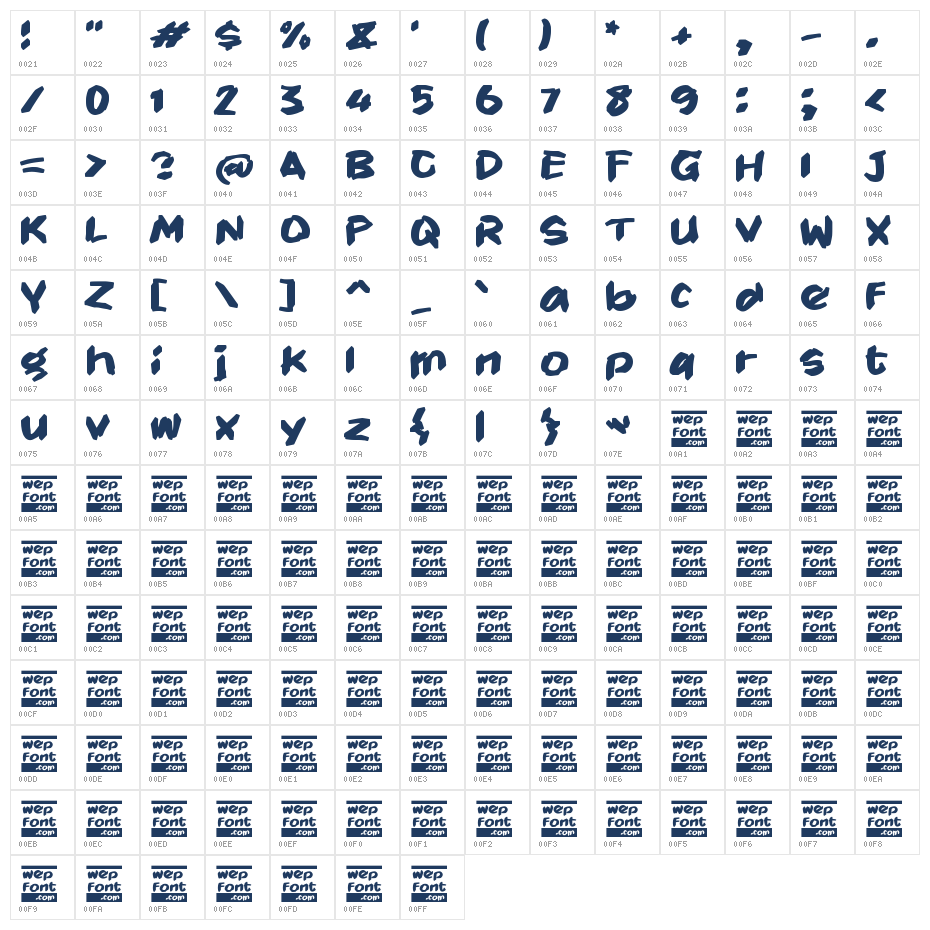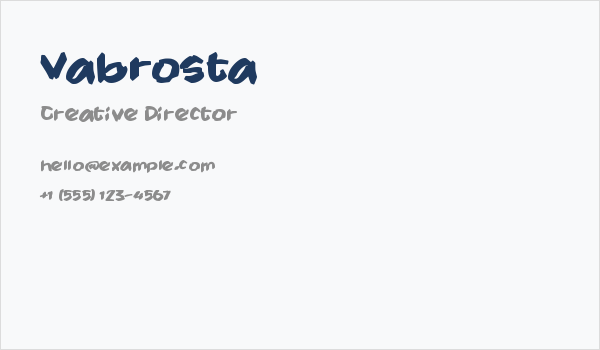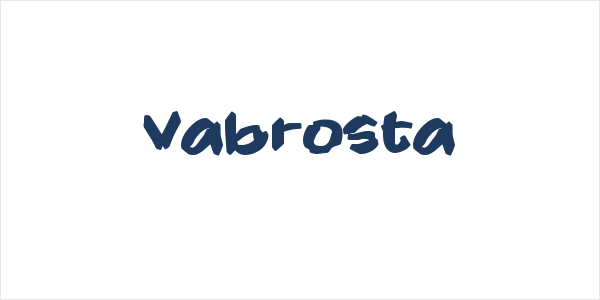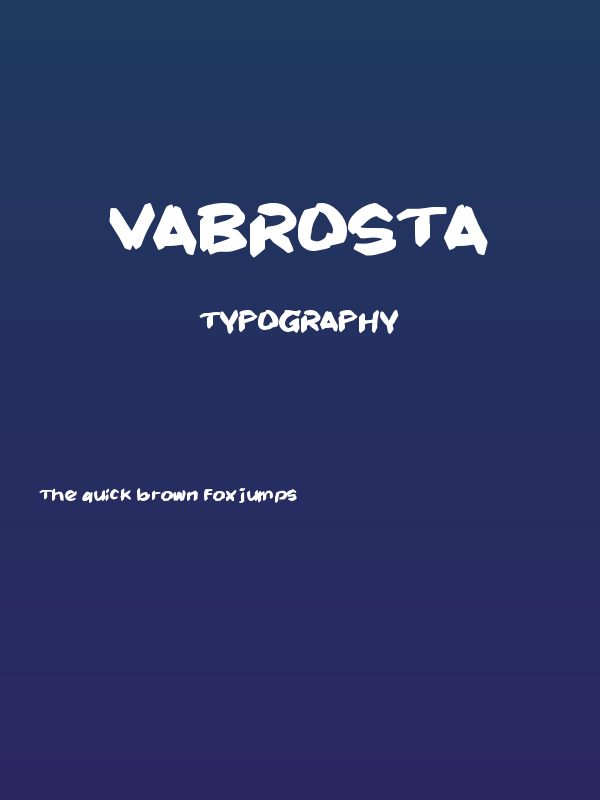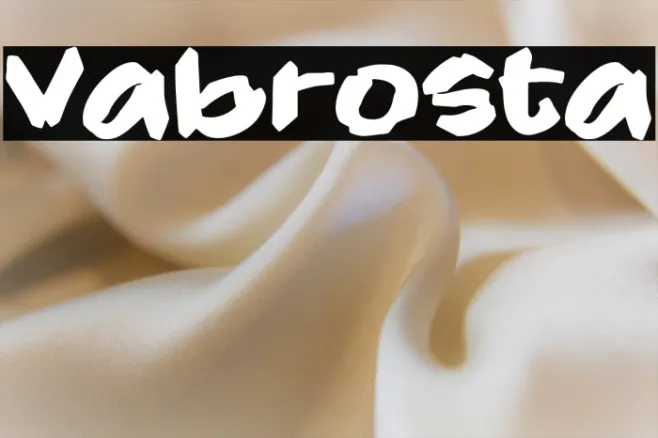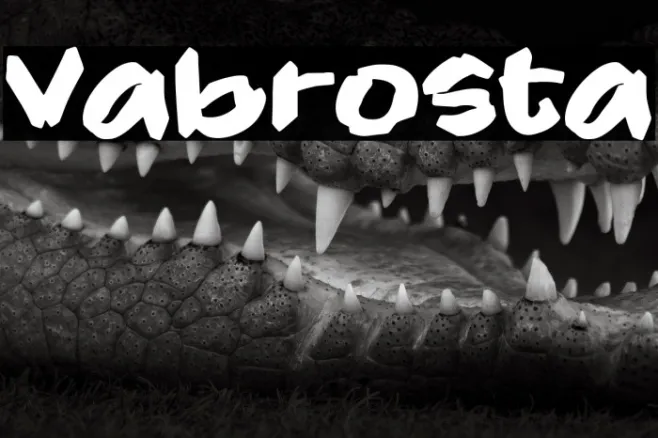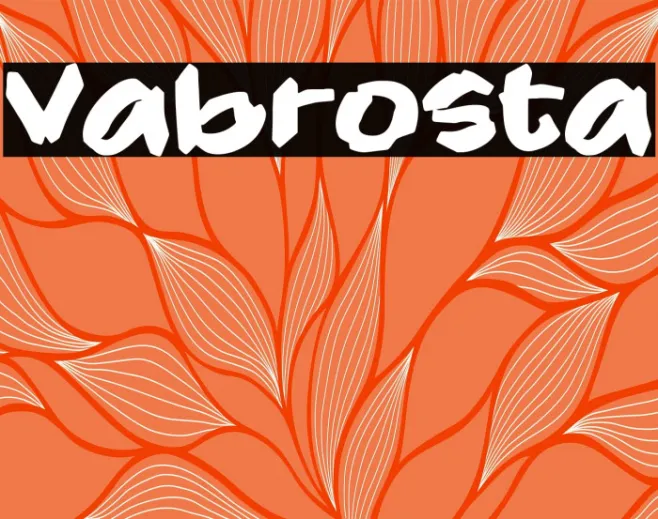
Vabrosta Font
Vabrosta Description
Bold, playful, handwritten style font with irregular, brush-like strokes.
| Use Case | Headlines, Posters, Children's products, Informal branding |